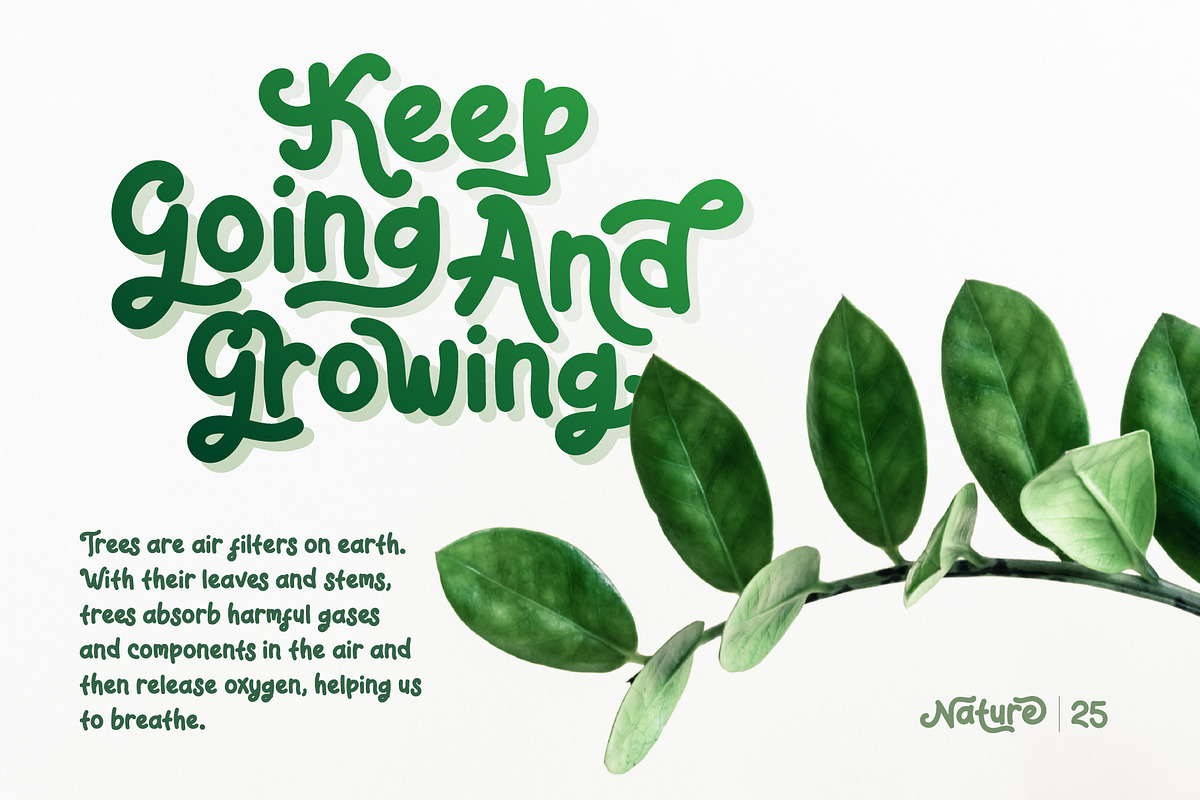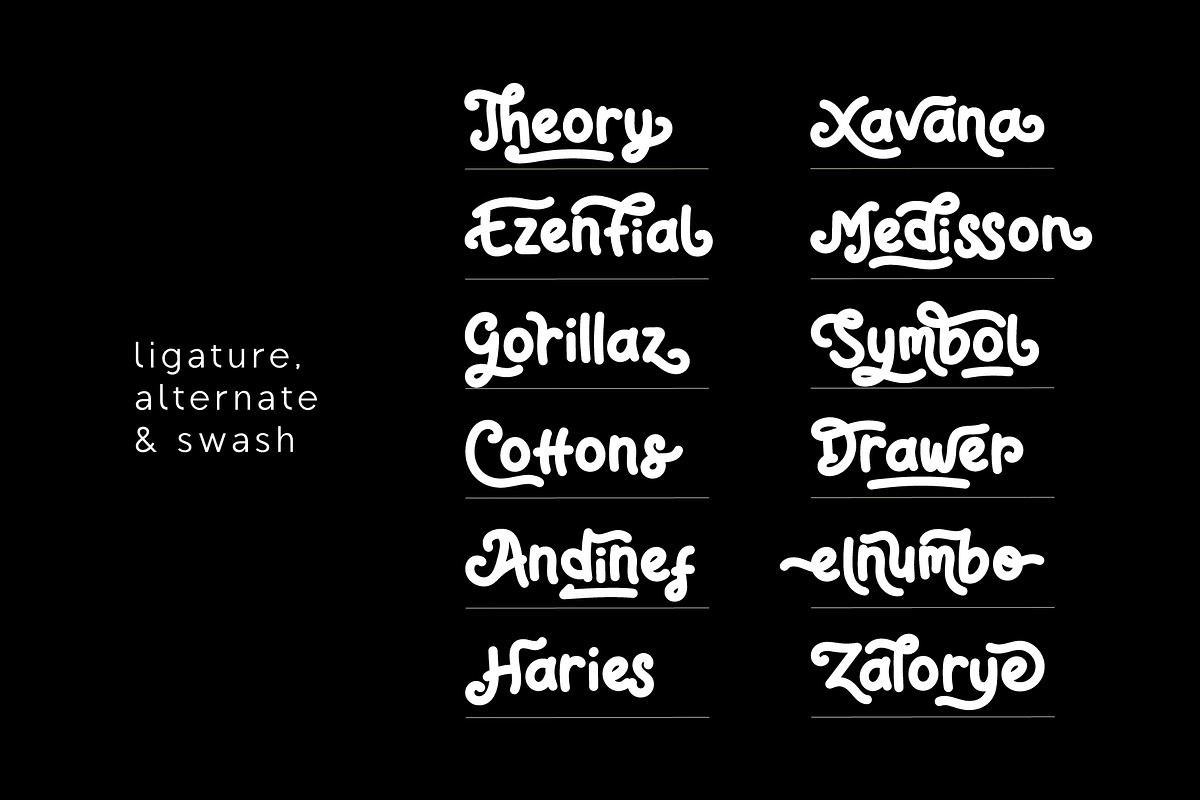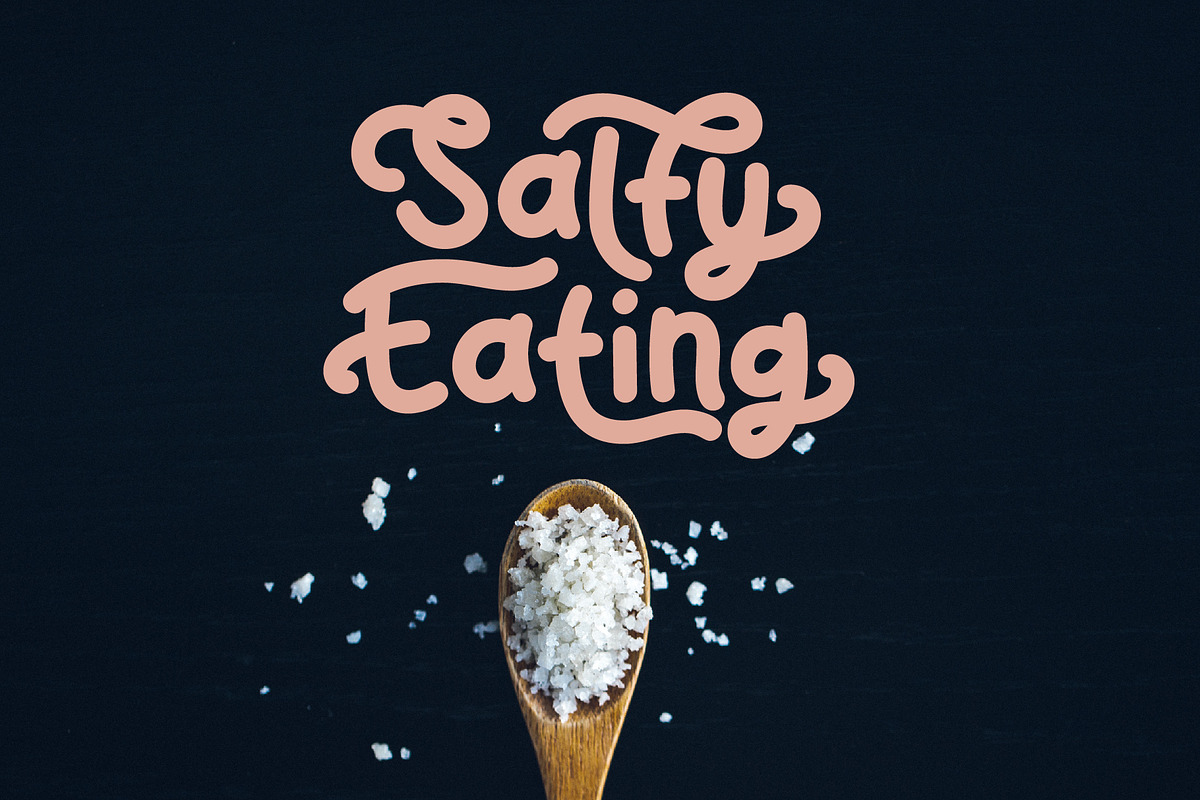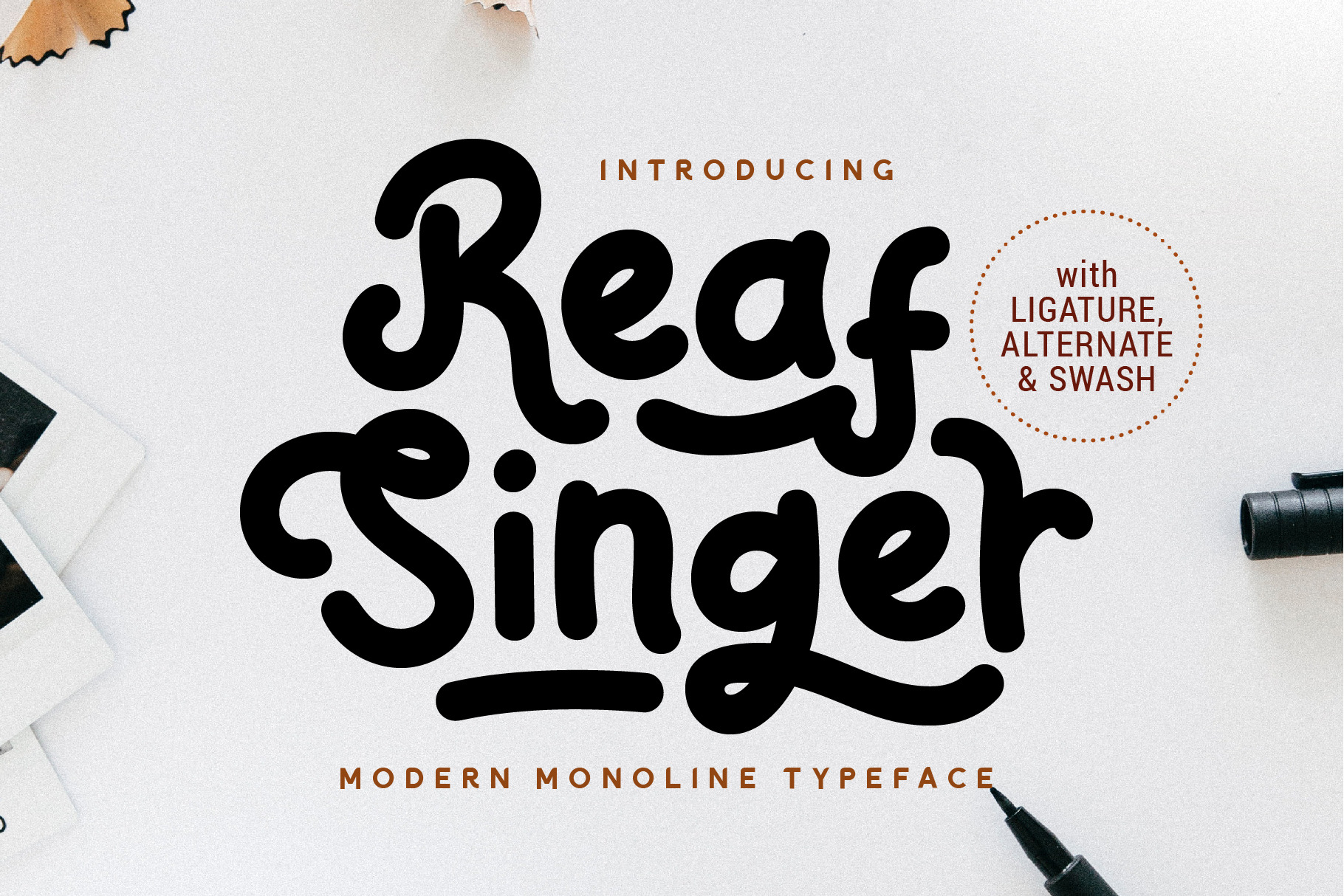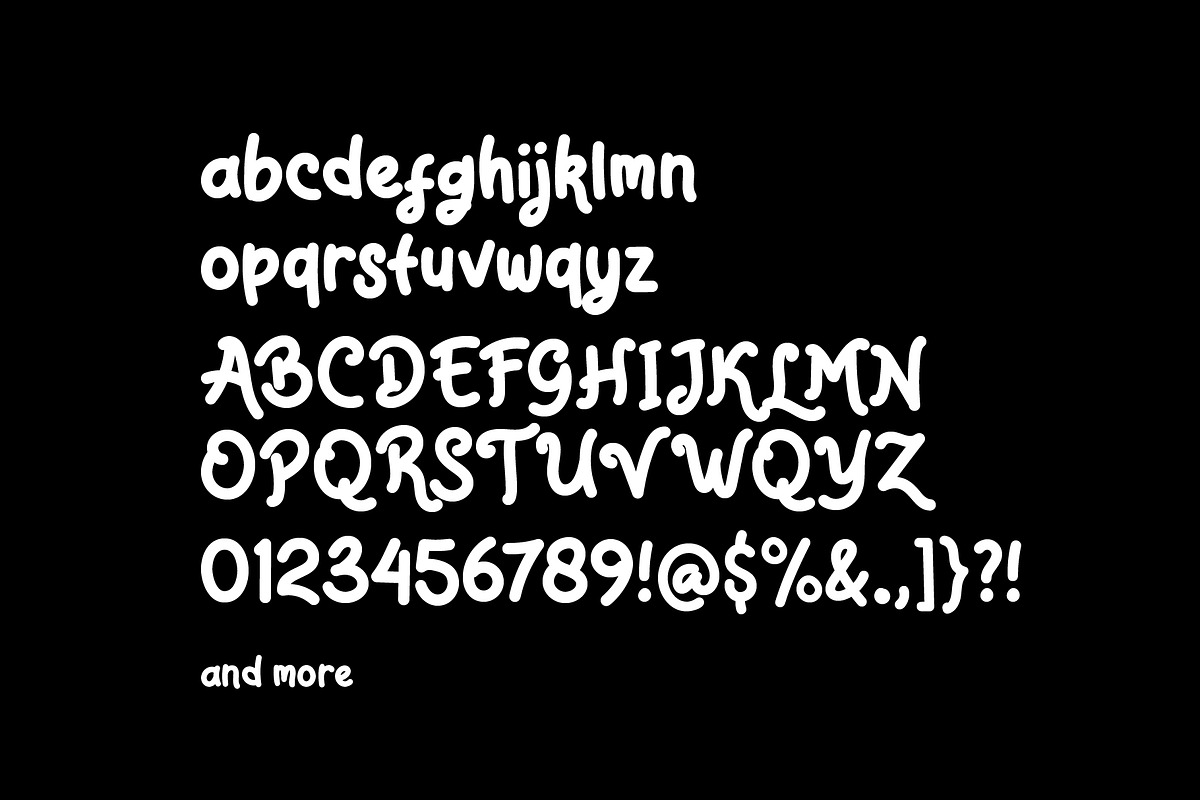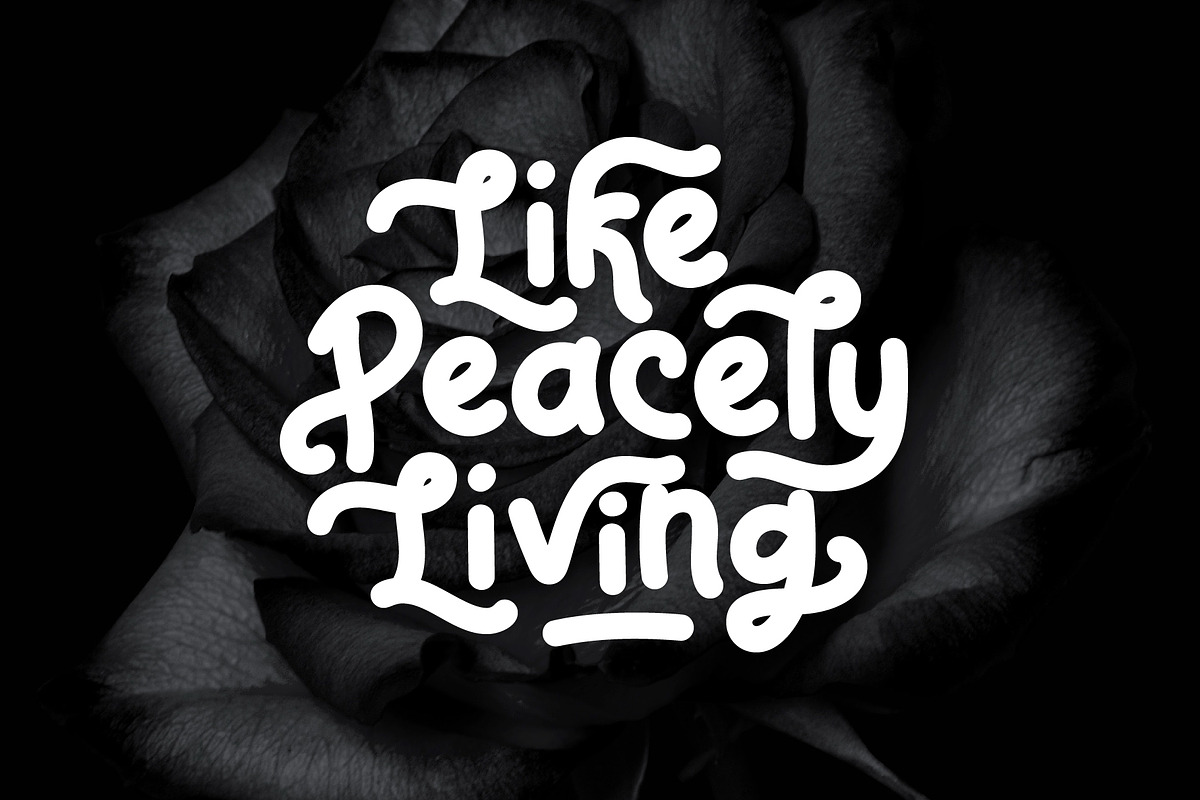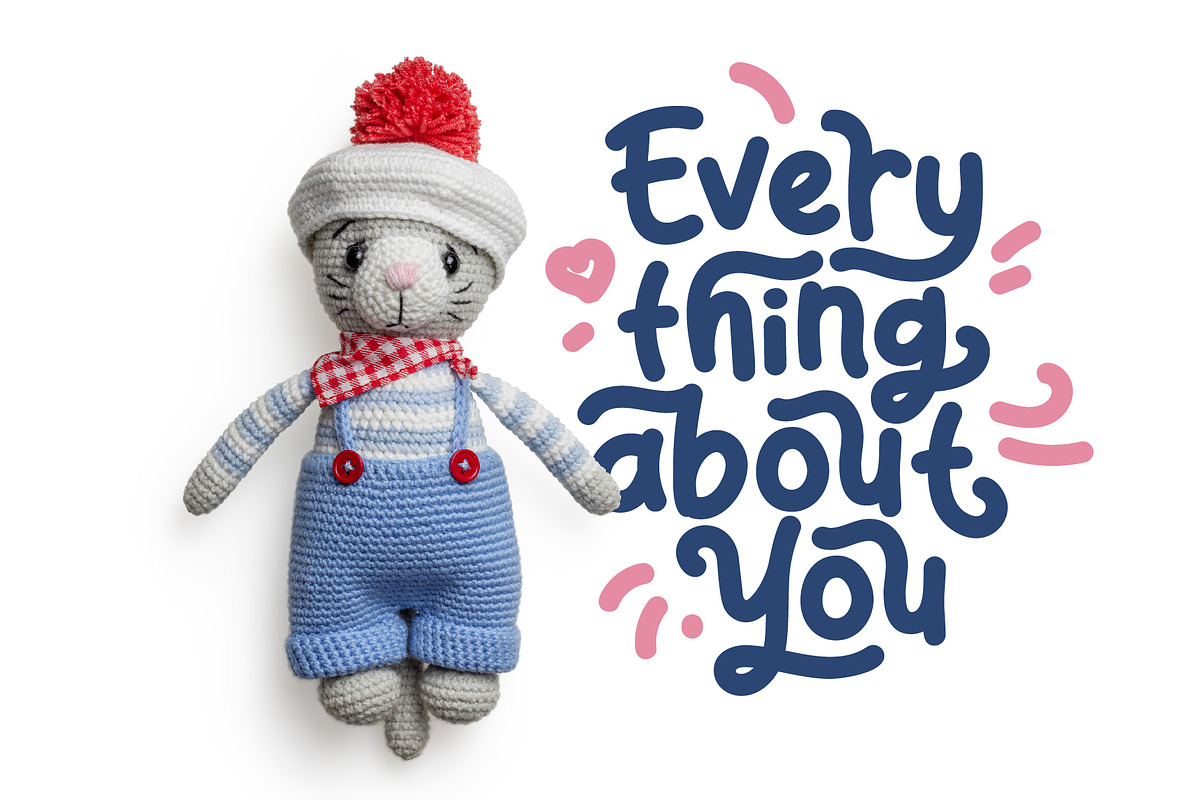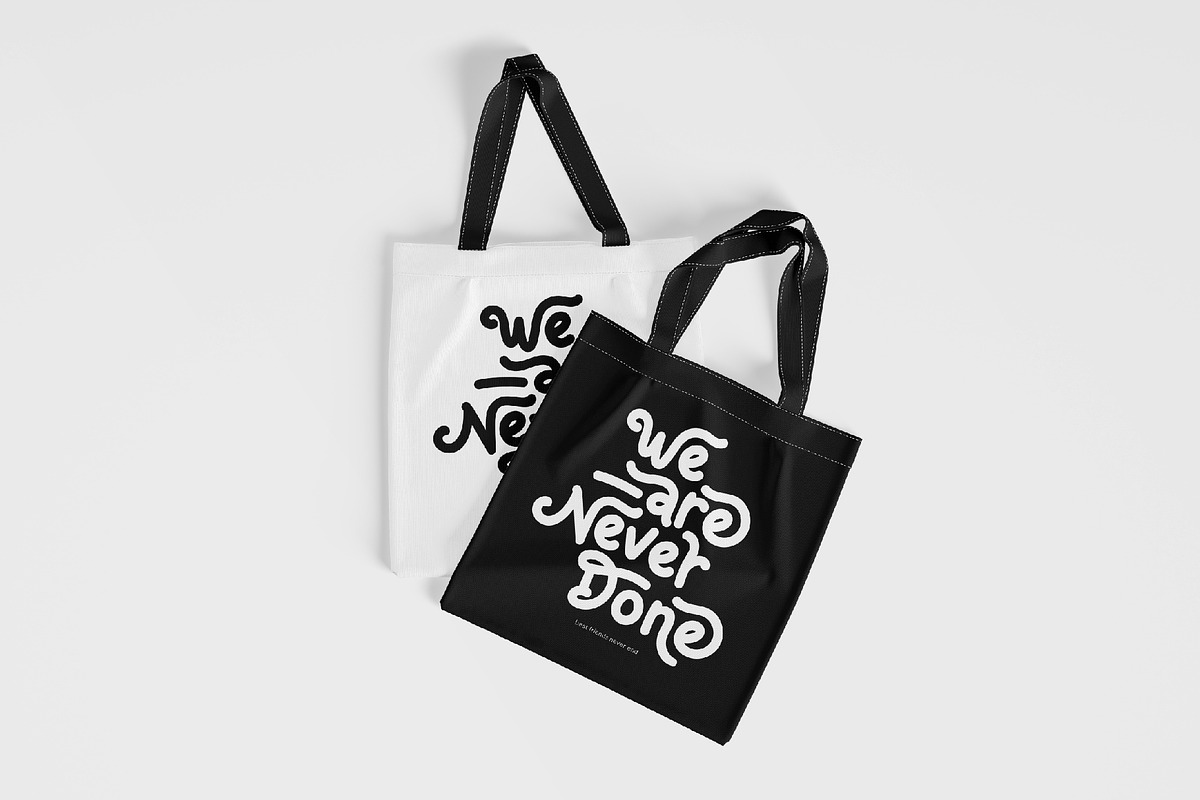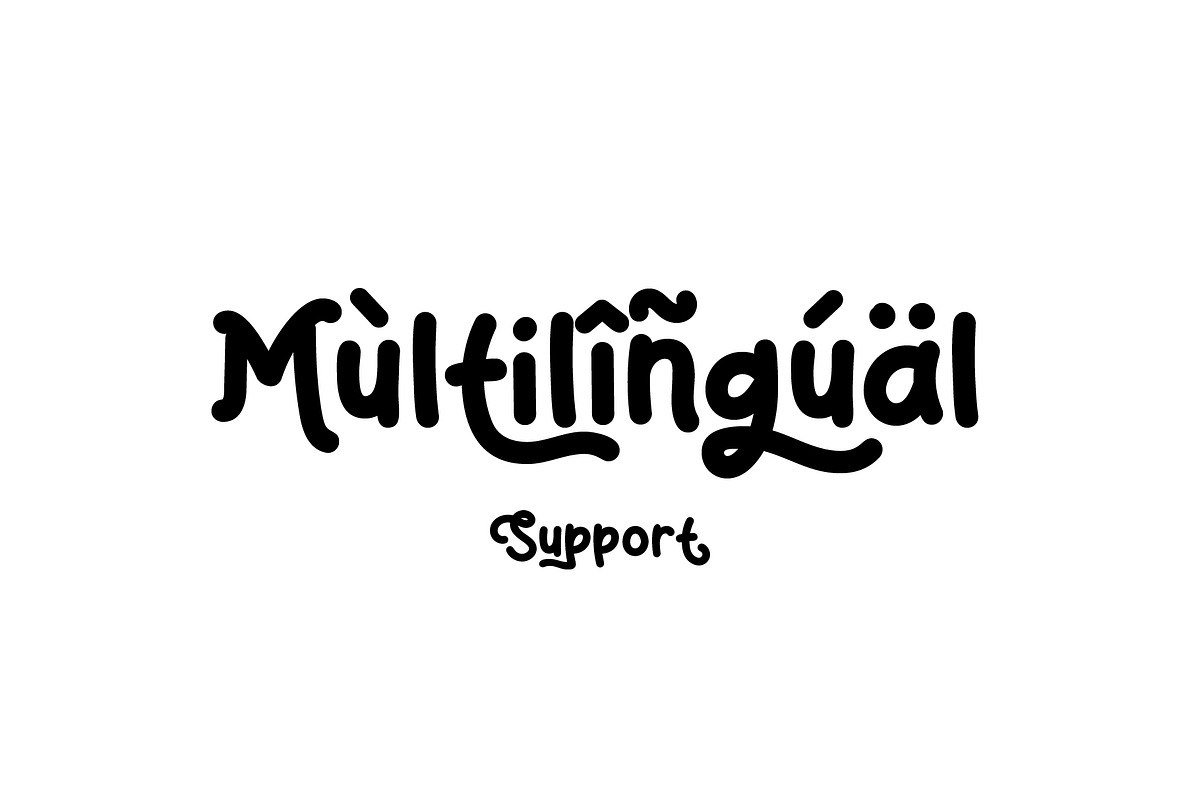
Reaf Singer Playful Font
Reaf Singer is a modern monoline typeface/font designed with carefully handcrafted. This perfectly made to be applied in logo or branding, stationery, books, packaging, fashion, magazines, t-shirt, novels, labels and many advertising purposes.
Features: Uppercase, Lowercase, Number, Punctuation, Symbol, Multilingual, Ligature, Alternate, Swash.